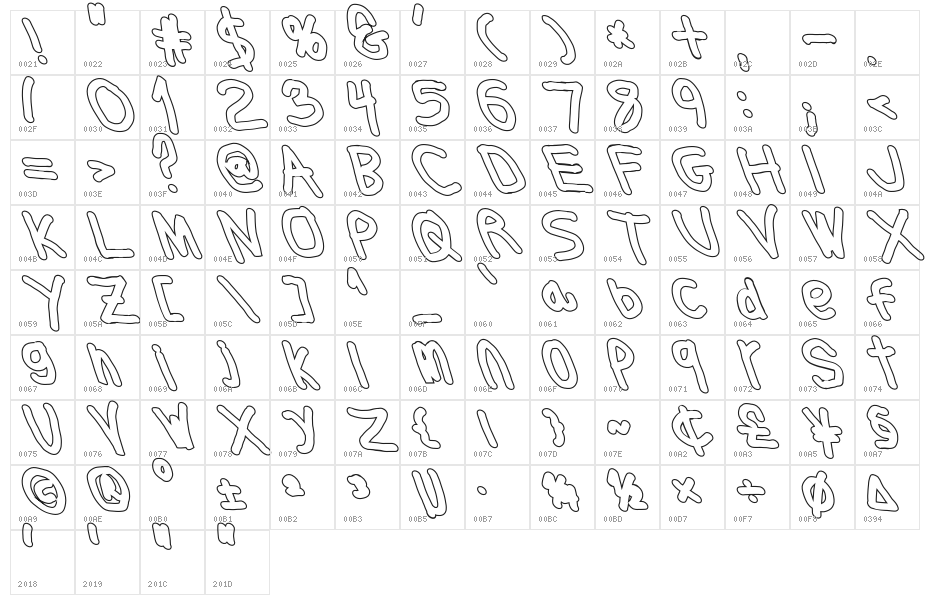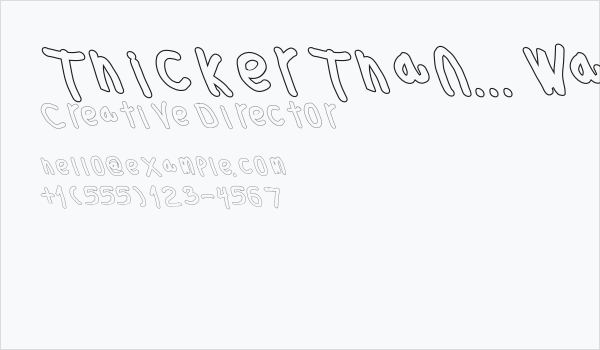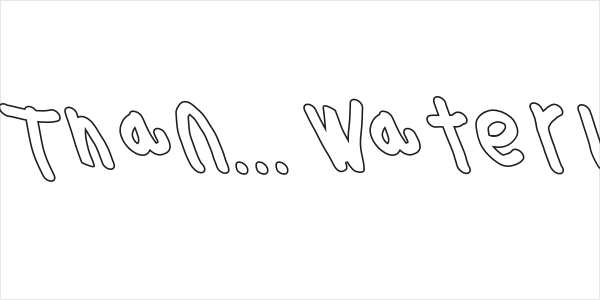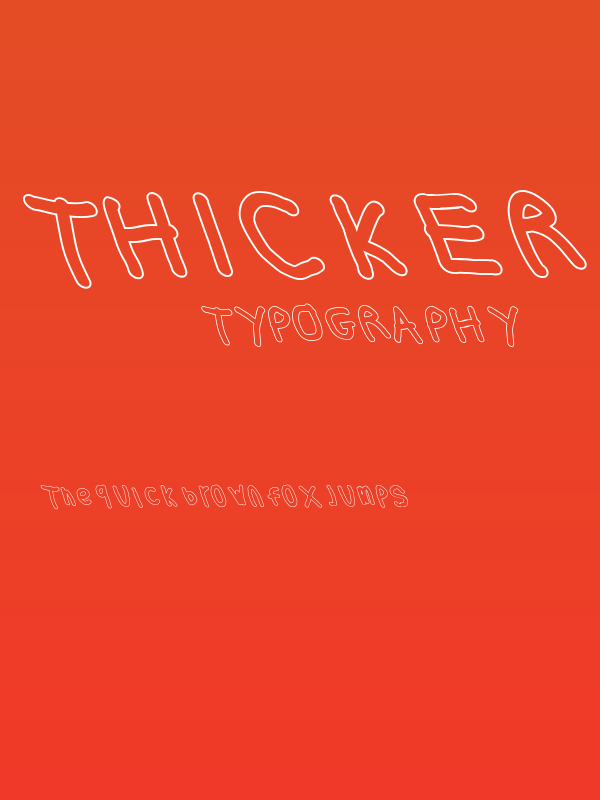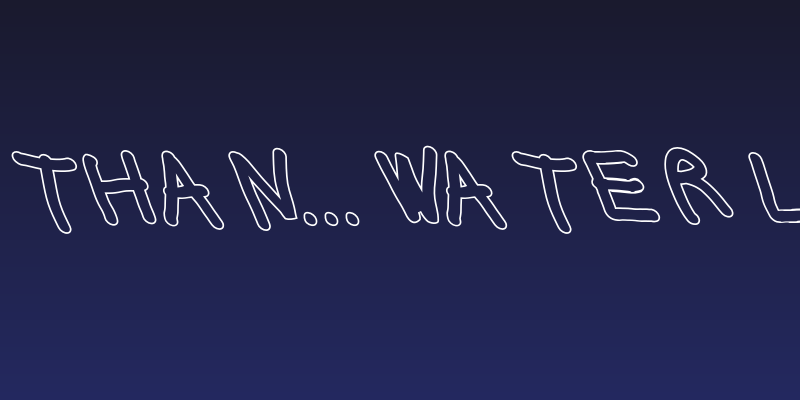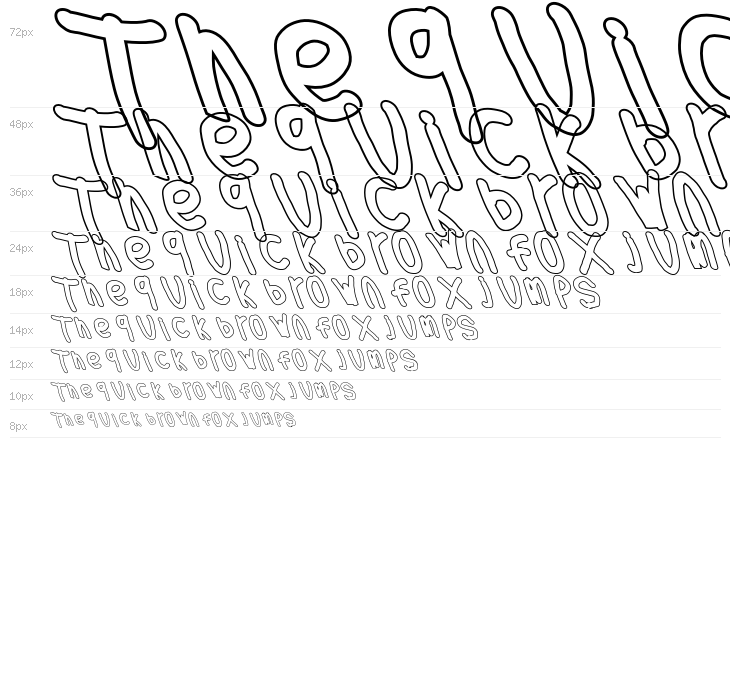
Thicker Than... Water Leftalic Font
Thicker Than... Water Leftalic Description
This playful and bold font features a hand-drawn aesthetic with thick, uneven strokes that give it a whimsical and informal appearance. The characters are slightly slanted, adding a dynamic and lively feel. The uppercase and lowercase letters maintain a consistent style, with rounded edges and a casual, friendly vibe. Numbers and special characters are designed with the same playful touch, making them suitable for creative projects. The font's unique style makes it stand out, perfect for designs that require a personal and approachable look.
| Proposed Projects | Ideal for children's books, playful branding, casual invitations, and creative posters. |